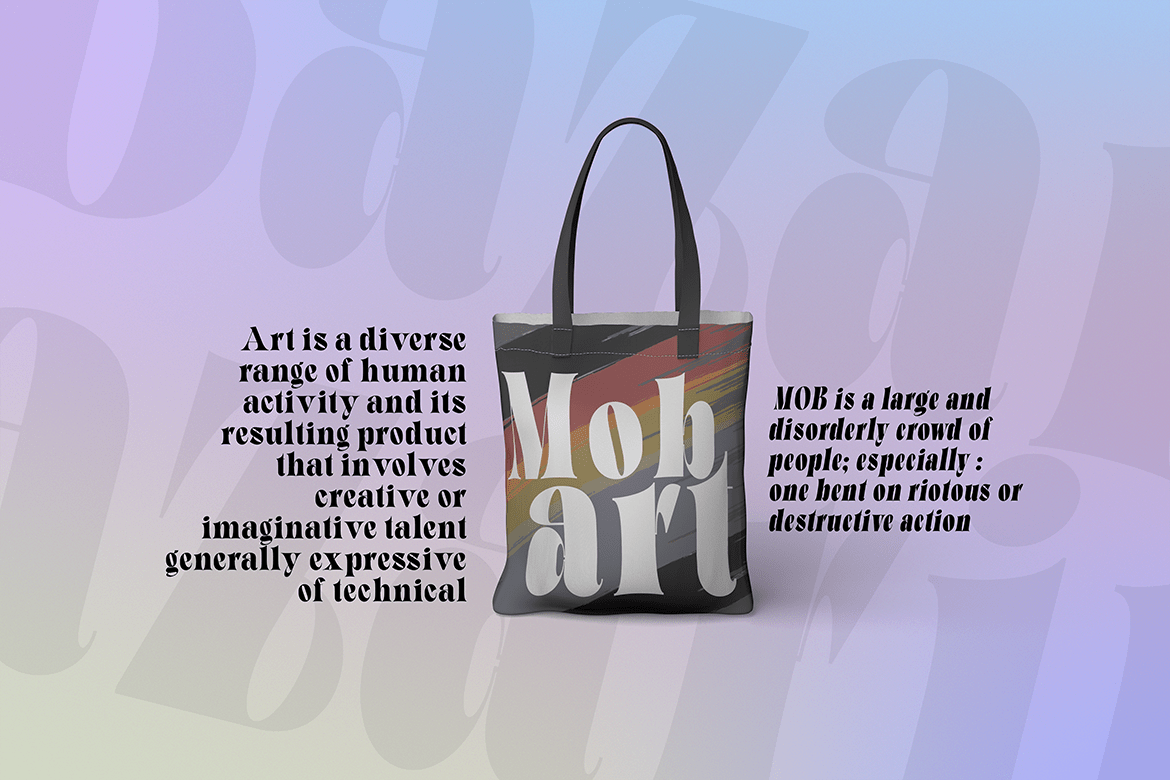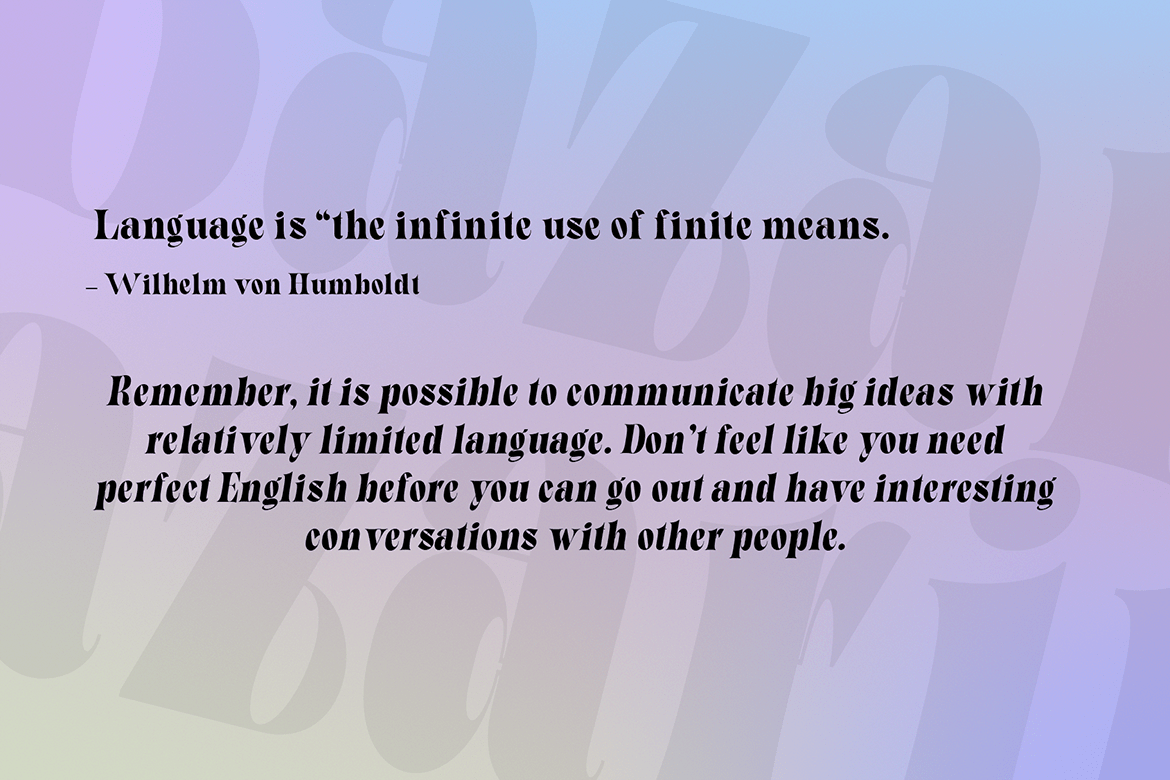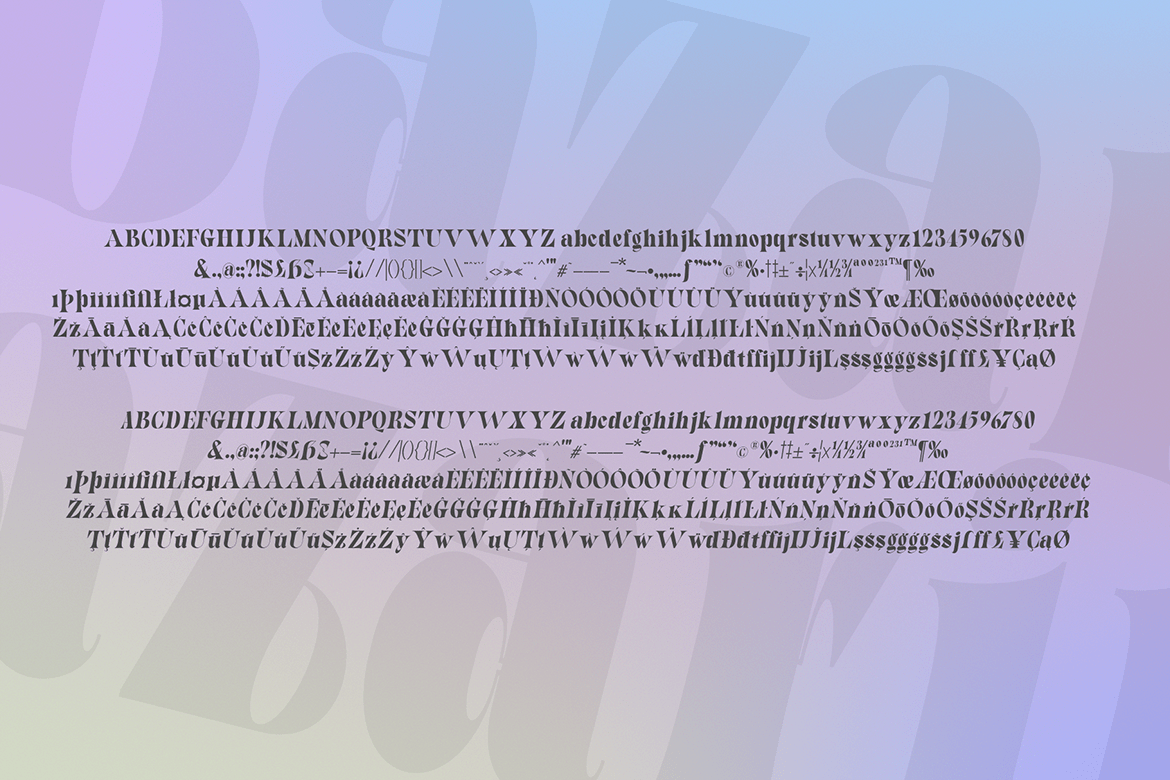
Bazaruto
Bazaruto is a font family that has 8 variations, divided into normal and italic styles. The Bazaruto font is a unique serif font, because it has a tip that reflects Japanese style or character.
Multilingual support for various languages including: French, German, Spanish, Portuguese, Italian, Dutch, Finnish, Swedish, and more.
The Bazaruto font family includes 374 glyphs.